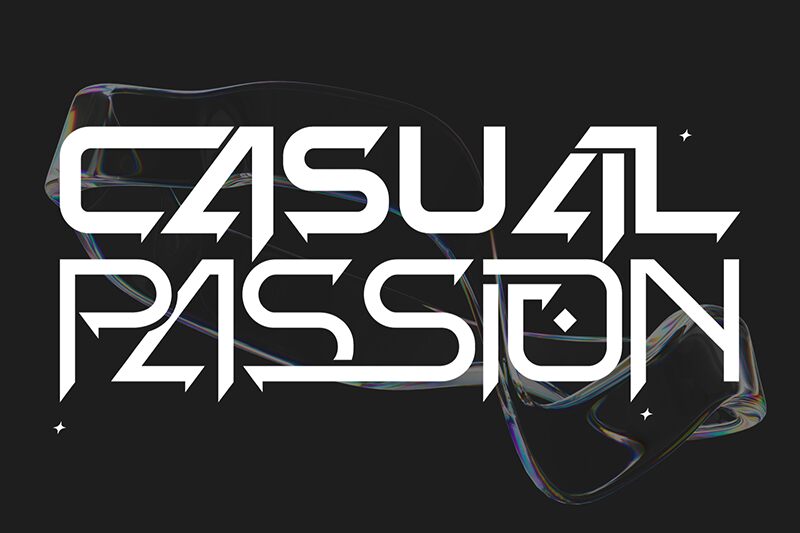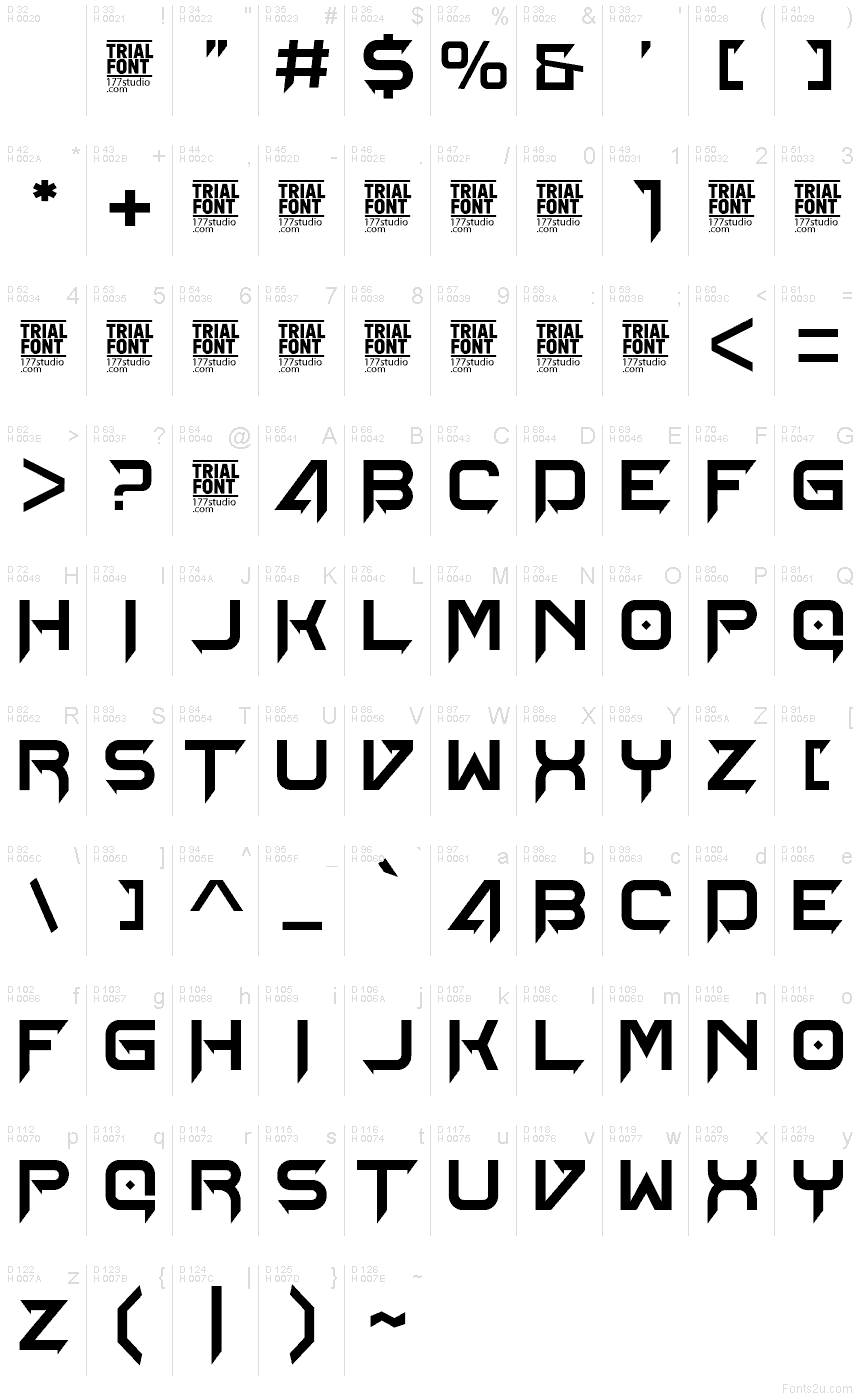
Casual Passion font by 177Studio is a free modern gothic typeface that slams bold geometry into razor-cut angles. The letters lock together like a custom logo: sharp diagonals, tight spacing, and squared curves give it a fast, electric feel, while details like the star-shaped counter add a hit of attitude. It looks like it was stamped on metal or sprayed on concrete—strong, loud, and unapologetically stylized.
Using Casual Passion, your titles instantly read as edgy and intentional, not generic. This free font works beautifully for esports and gaming logos, streetwear branding, album and poster art, YouTube or Twitch graphics, and bold sticker or merch designs. Keep it big for maximum impact, and pair it with a clean, neutral sans-serif for small text to let its sculpted forms do the shouting.